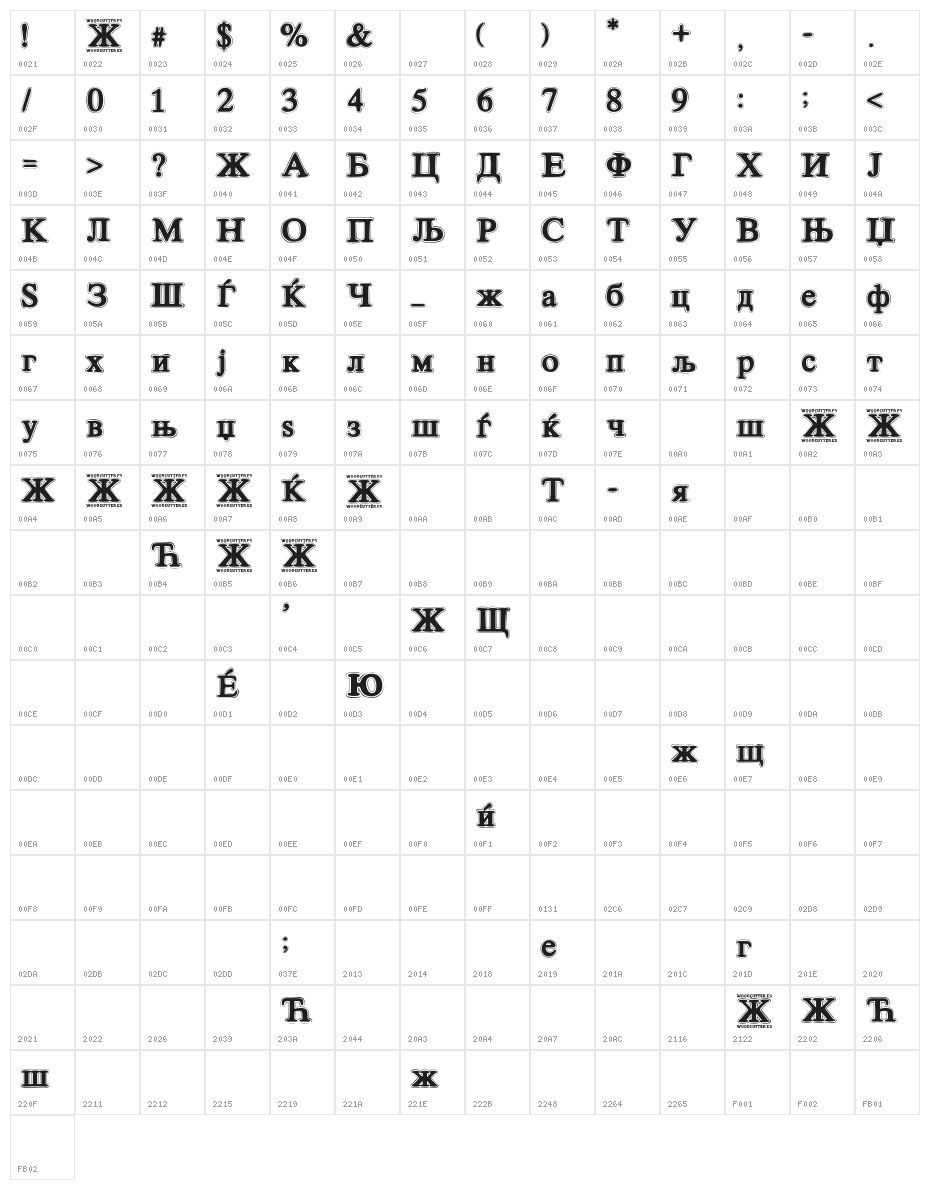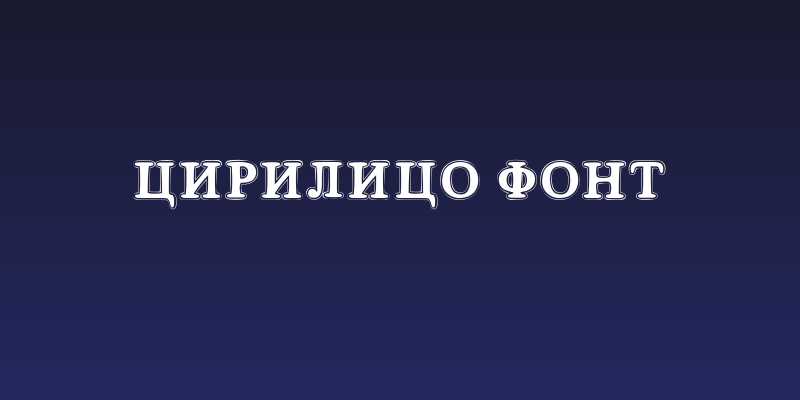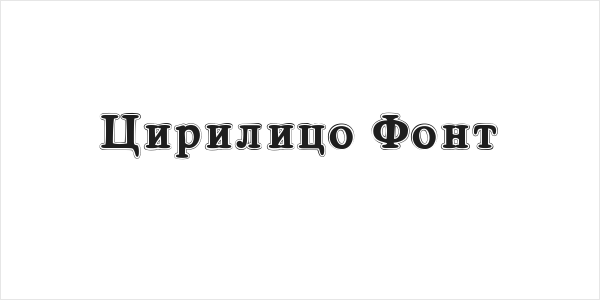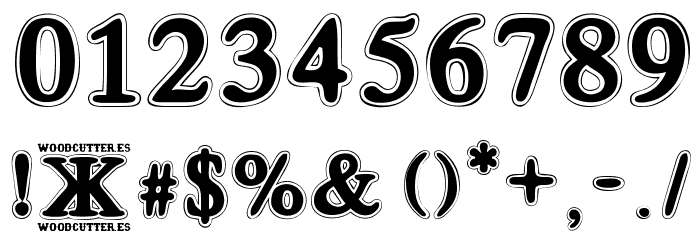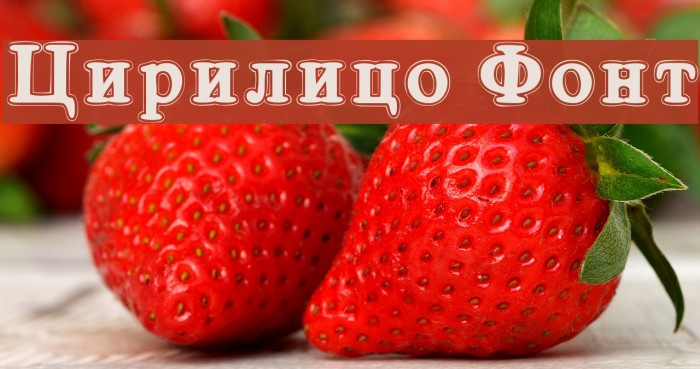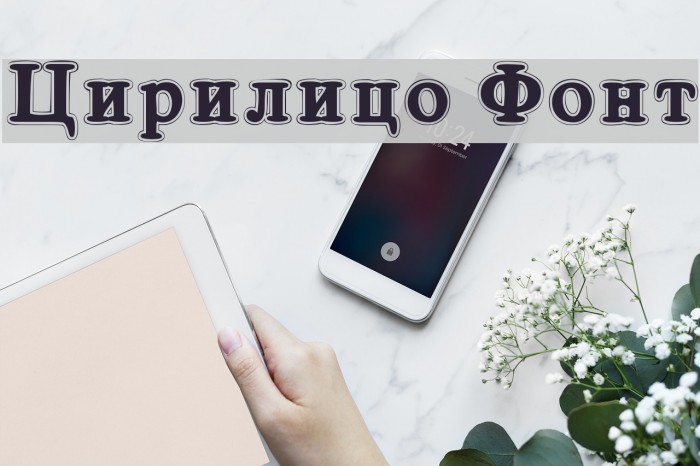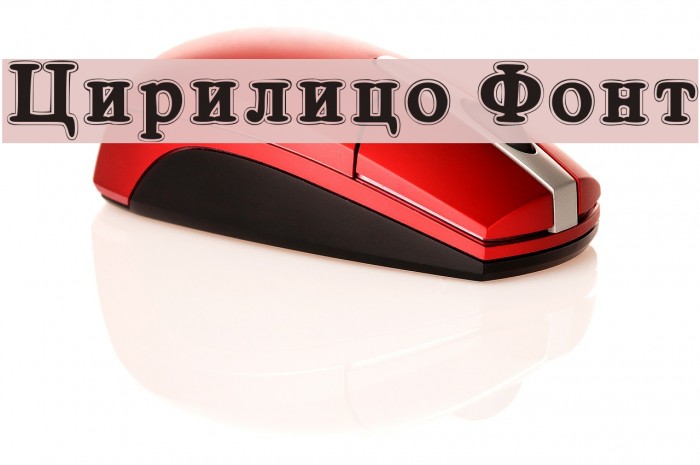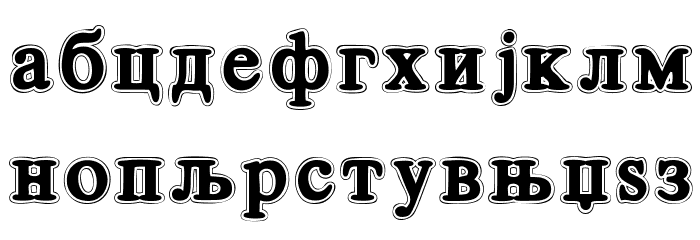
Cirilico Font Font
Cirilico Font Description
This font features a bold and decorative style with a strong presence. The characters are outlined with a thick black border, giving them a three-dimensional effect. The uppercase and lowercase letters are consistent in style, with a slight serif touch that adds elegance. The numbers are equally bold, maintaining the same decorative outline. Special characters are included, matching the overall aesthetic. This font is visually striking and commands attention, making it suitable for impactful designs.
| Proposed Projects | Ideal for posters, logos, headlines, and any design requiring a strong visual impact. |